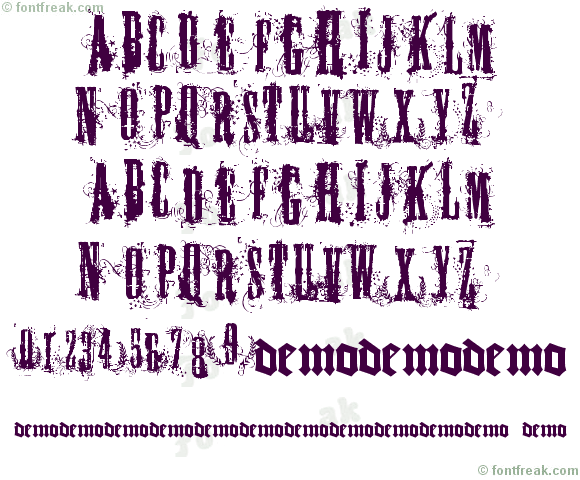
FUCK YOU LAS VEGAS
About FUCK YOU LAS VEGAS
The FUCK YOU LAS VEGAS font by Marcio Hirosse is a striking display typeface that captures attention with its bold, rebellious aesthetic. This font falls into the decorative category, characterized by its unique and edgy design that combines a grunge effect with playful elements. The individual letters showcase an uneven stroke weight and a high level of contrast, giving it an organic feel that exudes confidence. The spacing between characters is intentionally varied, enhancing its dynamic appearance, while decorative flourishes add an extra layer of intrigue.
This font is ideal for a range of creative projects where a statement is necessary. It works remarkably well for event flyers, especially those promoting nightlife or parties in vibrant settings like Las Vegas. Additionally, it can be effectively used in social media graphics, t-shirt designs, and even as eye-catching headlines on blog posts related to entertainment or lifestyle. Its boldness makes it suitable for restaurant menus aiming to create a fun and lively atmosphere, as well as for promotional materials for music festivals.
The target audience for the FUCK YOU LAS VEGAS font includes graphic designers looking to add a distinctive touch to their projects, small business owners wanting to stand out in a crowded market, and content creators seeking to convey a bold message. This font's unique personality allows users to express individuality and creativity in their designs.
What sets the FUCK YOU LAS VEGAS font apart is its ability to combine attitude with artistic flair. It evokes a sense of rebellion and playfulness, making it a perfect choice for projects that aim to capture the spirit of adventure and fun. Don't miss out on the opportunity to elevate your designs with the FUCK YOU LAS VEGAS font free download.